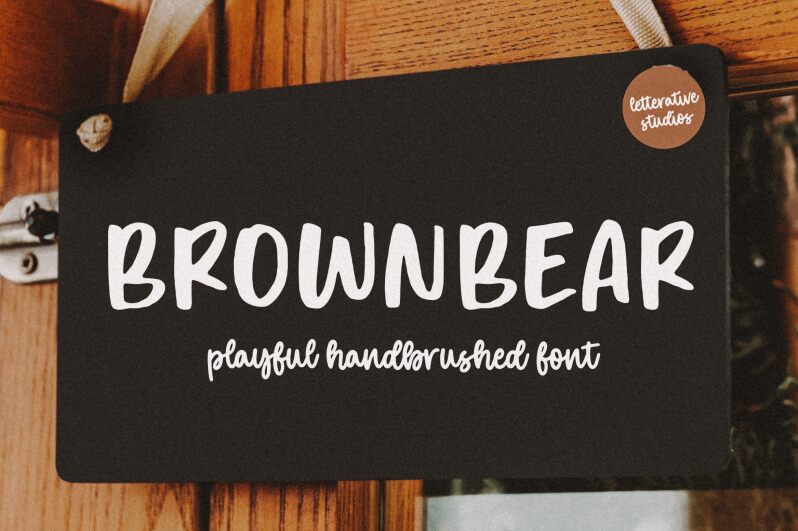
Brownbear
Brownbear emerges from the creative minds at Letterative Studio, exuding a sense of warmth and personality that only a handwritten style can offer. Its semi-light weight grants it an unassuming charm, perfect for designs that require a touch of intimacy without the heaviness typical of bolder fonts. The gentle curves and slightly irregular contours of Brownbear echo the nuances of personal handwriting, making it an excellent choice for invitations, branding projects, and editorial work where a human touch is desired.
The aesthetic appeal of Brownbear lies in its balance between legibility and artistic flair. It invites readers into a world that feels private and handcrafted, ideal for projects aiming to establish a friendly and approachable vibe. Whether it's gracing the pages of a boutique's lookbook or adding character to personal blogs, this font holds versatility at its core.
Brownbear is more than just a typeface; it's an invitation to storytellers and visual artists alike to infuse their work with authenticity and subtle sophistication. Its suitability stretches across print media, digital interfaces, and beyond—anywhere you wish to convey casual elegance with a personalized twist.
The aesthetic appeal of Brownbear lies in its balance between legibility and artistic flair. It invites readers into a world that feels private and handcrafted, ideal for projects aiming to establish a friendly and approachable vibe. Whether it's gracing the pages of a boutique's lookbook or adding character to personal blogs, this font holds versatility at its core.
Brownbear is more than just a typeface; it's an invitation to storytellers and visual artists alike to infuse their work with authenticity and subtle sophistication. Its suitability stretches across print media, digital interfaces, and beyond—anywhere you wish to convey casual elegance with a personalized twist.